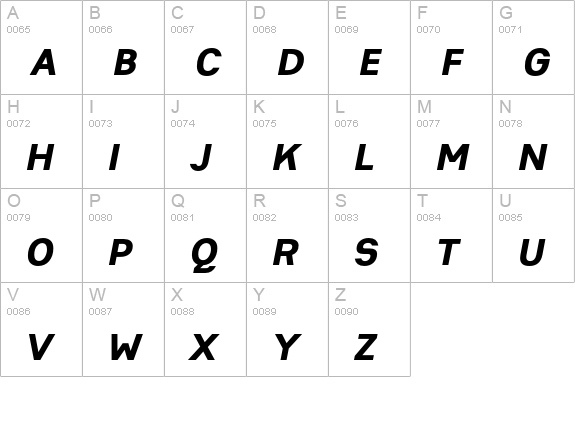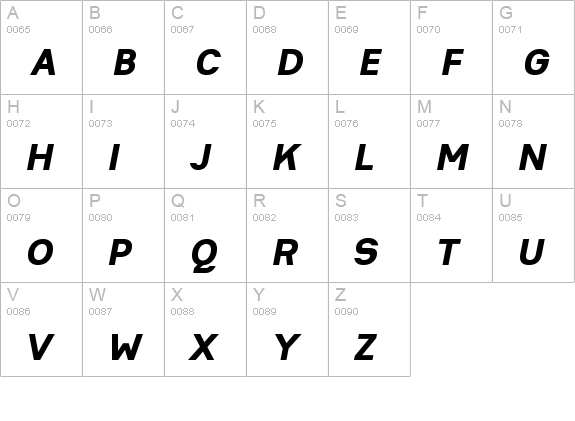
HeimatSans-ExtraBoldIt Font Details
HeimatSans-ExtraBoldIt is a striking and bold font that commands attention with its robust, yet elegant design. This font exudes confidence and modernity, making it perfect for headlines, logos, and branding projects that require a strong visual impact. The italicized version adds a touch of sophistication and flair to any text. What sets HeimatSans-ExtraBoldIt apart is not only its impressive aesthetics but also the fact that it is available for free download at FontsMarket.com. This means that designers and creatives can easily access this high-quality font without any cost, making it a valuable resource for any project that requires a bold and impactful typeface. Whether you're working on a poster, website design, or any other creative endeavor, HeimatSans-ExtraBoldIt is sure to elevate your work and make a lasting impression. Download it for free today and see how this font can enhance your design projects.